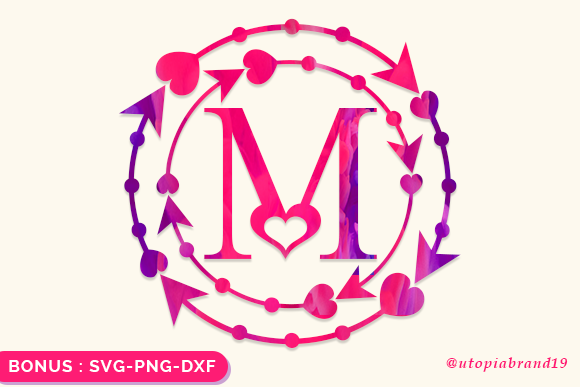
Step into a world of elegance and charm with Mommy Monogram Font, a decorative font crafted by utopiabrand19. This remarkable font is adorned with lovely heart-themed ornaments, adding a touch of love and warmth to every letter. Prepare to be captivated by its authentic feel, perfect for creating stunning letters, exquisite stationary art, eye-catching social media posts, and heartwarming greeting cards.
Slip into a realm of creativity, where Mommy Monogram Font weaves its magic. Let your imagination soar as you craft letters that exude charm and sophistication, transforming ordinary words into works of art. Create mesmerizing stationary art that captures the essence of love and togetherness. Design social media posts that pop with personality, leaving a lasting impression on your audience. Share your heartfelt greetings with customized cards, adorned with the delicate beauty of Mommy Monogram Font.
Discover the enchanting world of Mommy Monogram Font, a treasure trove of beauty and grace. It is the perfect font for adding a touch of romance to wedding invitations, capturing the joy of baby announcements, or simply expressing your love and appreciation to those who matter most. Let your creativity shine as you explore the endless possibilities of this remarkable font, creating visual masterpieces that will leave a lasting impression.
Unlock the door to a world of beauty and sophistication with Mommy Monogram Font. Embark on a creative journey, transforming your digital creations into works of art. Experience the joy of crafting unique and meaningful designs that radiate love and charm. Whether you're a seasoned designer or just starting your creative journey, Mommy Monogram Font is the perfect companion, guiding you towards artistic excellence.